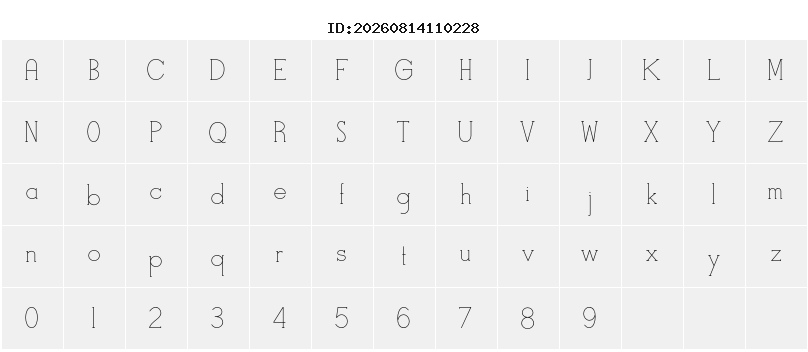
StymieStylus Preview
• Font Name: StymieStylus
• Font Style: light
• Full Font Name: StymieStylus
• PostScript Name: StymieStylus
About StymieStylus.otf
StymieStylus.otf is a modern, elegant sans-serif font designed for ultimate readability and visual harmony. Perfect for branding, headlines, web design, and print materials.